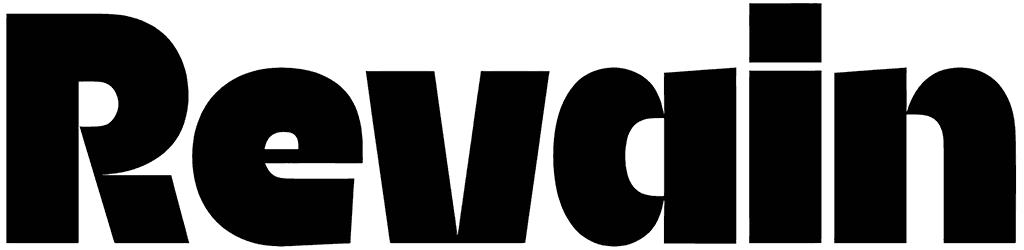
Revain Font
How can anyone look at the solid letters of Revain and not be entirely impressed by its strength and confidence? That’s just not possible. Revain is designed as a modern font, but without the minimal style, making it a lot more interesting to the viewers.
Anything designed with this kind of bold font can turn into an ideal logo for gyms, hypermarkets, delivery services, and anything like that, as long as it can use some masculine vibes in its design.